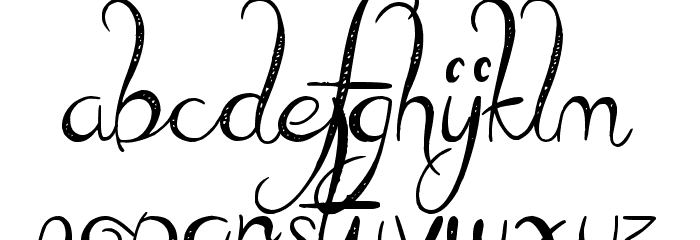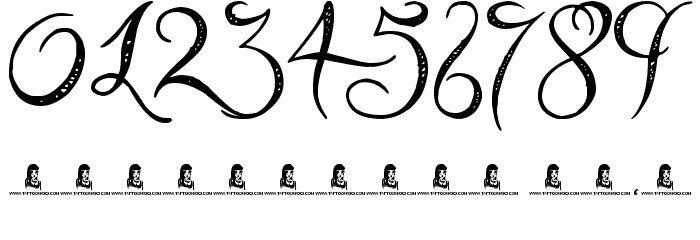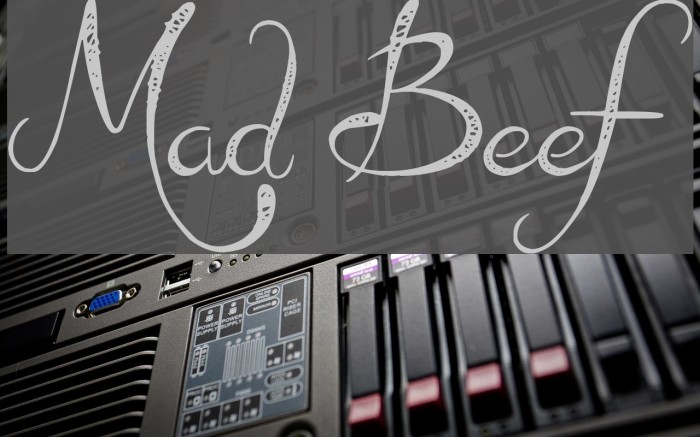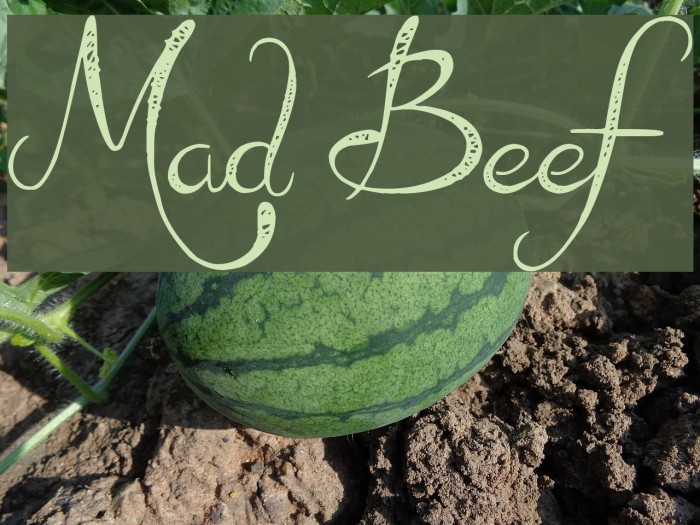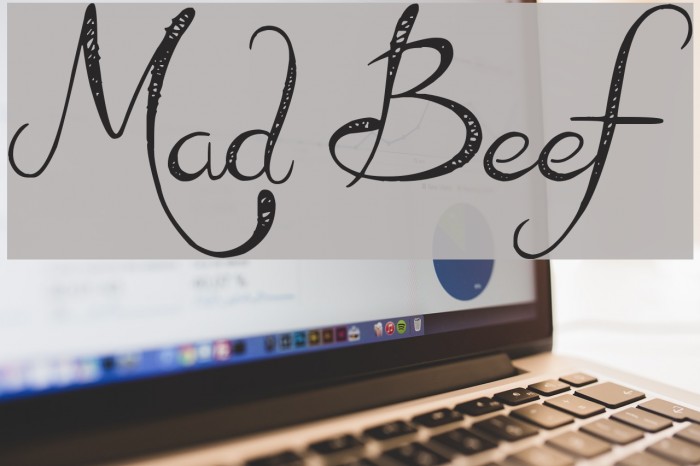
Mad Beef Font
This font features an elegant and decorative script style with a whimsical flair. The uppercase letters are characterized by intricate swirls and loops, giving them a sophisticated yet playful appearance. The lowercase letters maintain a consistent flow, with some letters extending below the baseline, adding to the font's dynamic nature. The numerals are equally stylized, with a unique blend of curves and lines that complement the overall design. Special characters are seamlessly integrated, maintaining the font's cohesive aesthetic. This font is ideal for projects that require a touch of elegance and creativity.
An elegant and whimsical script font with intricate swirls and loops.